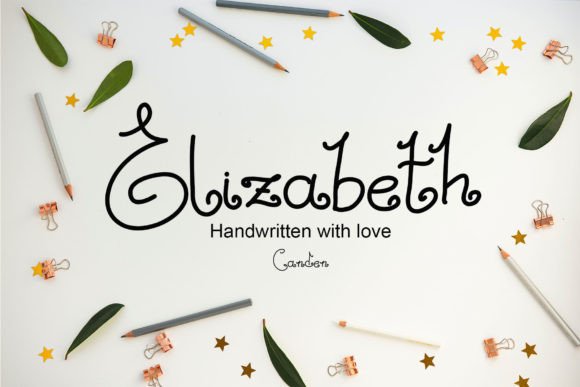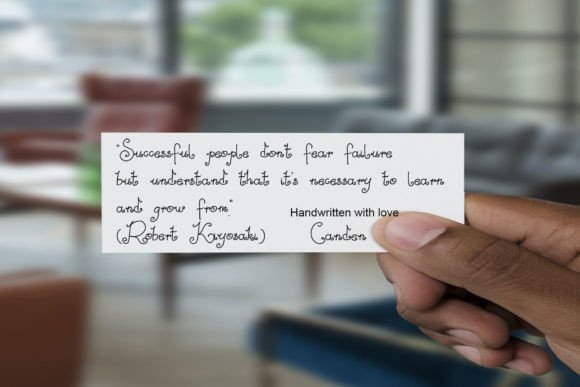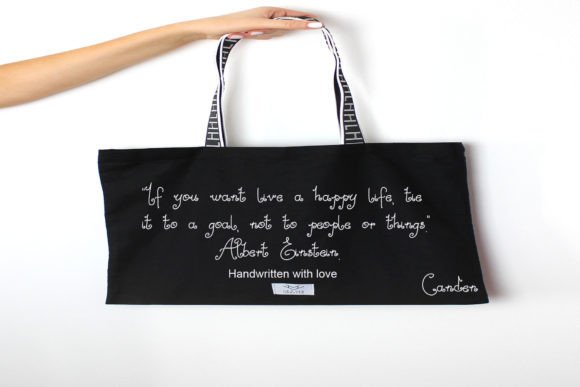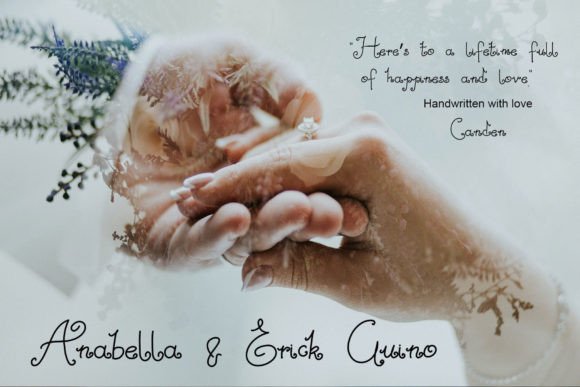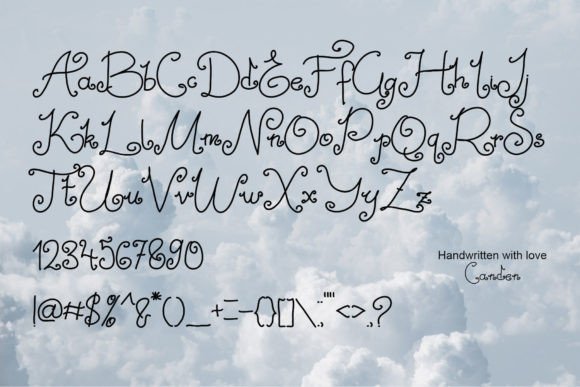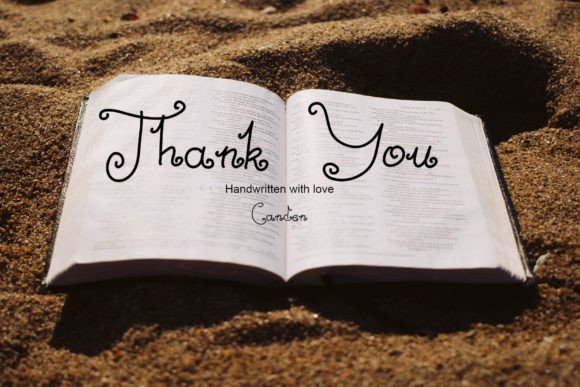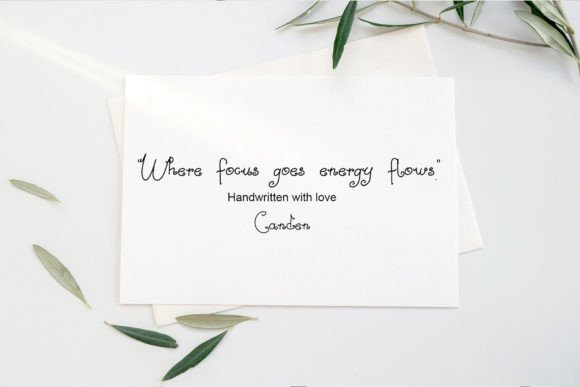
Elizabeth Font
About Elizabeth Font
“Elizabeth is a simple and carefully crafted handwritten font that proves to be perfect for a diverse range of applications, including websites, wedding invitations, business cards, signatures, advertisements, and more. With its cool and stylish design, this font becomes a wonderful addition to your font collection.
The charm of Elizabeth lies in its simplicity and meticulous craftsmanship. The font’s clean lines and carefully designed characters make it versatile and suitable for various design projects. Whether you’re working on a website, designing wedding invitations, or creating business cards, Elizabeth adds a touch of style to your creations.
Consider using Elizabeth for projects that demand a cool and stylish handwritten font. Its adaptability makes it a valuable asset in your design toolkit, allowing you to infuse a personal and contemporary touch into a variety of materials.
In summary, Elizabeth is more than just a font; it’s a design asset that seamlessly combines simplicity with style. Whether applied to digital or print materials, Elizabeth brings a cool and stylish vibe to your projects. Add Elizabeth to your font collection and let its simple yet stylish design enhance the visual appeal of your creative endeavors.”